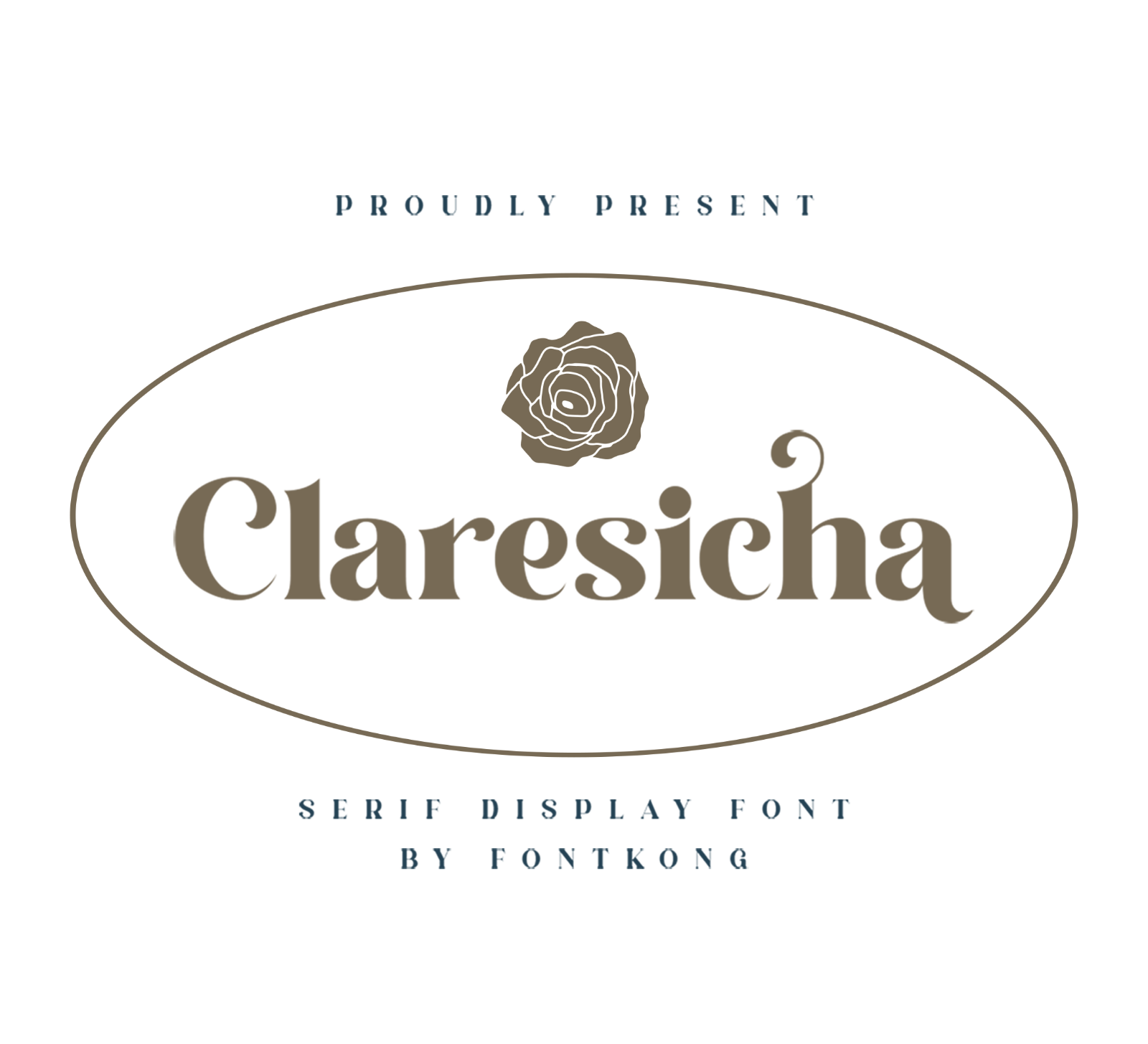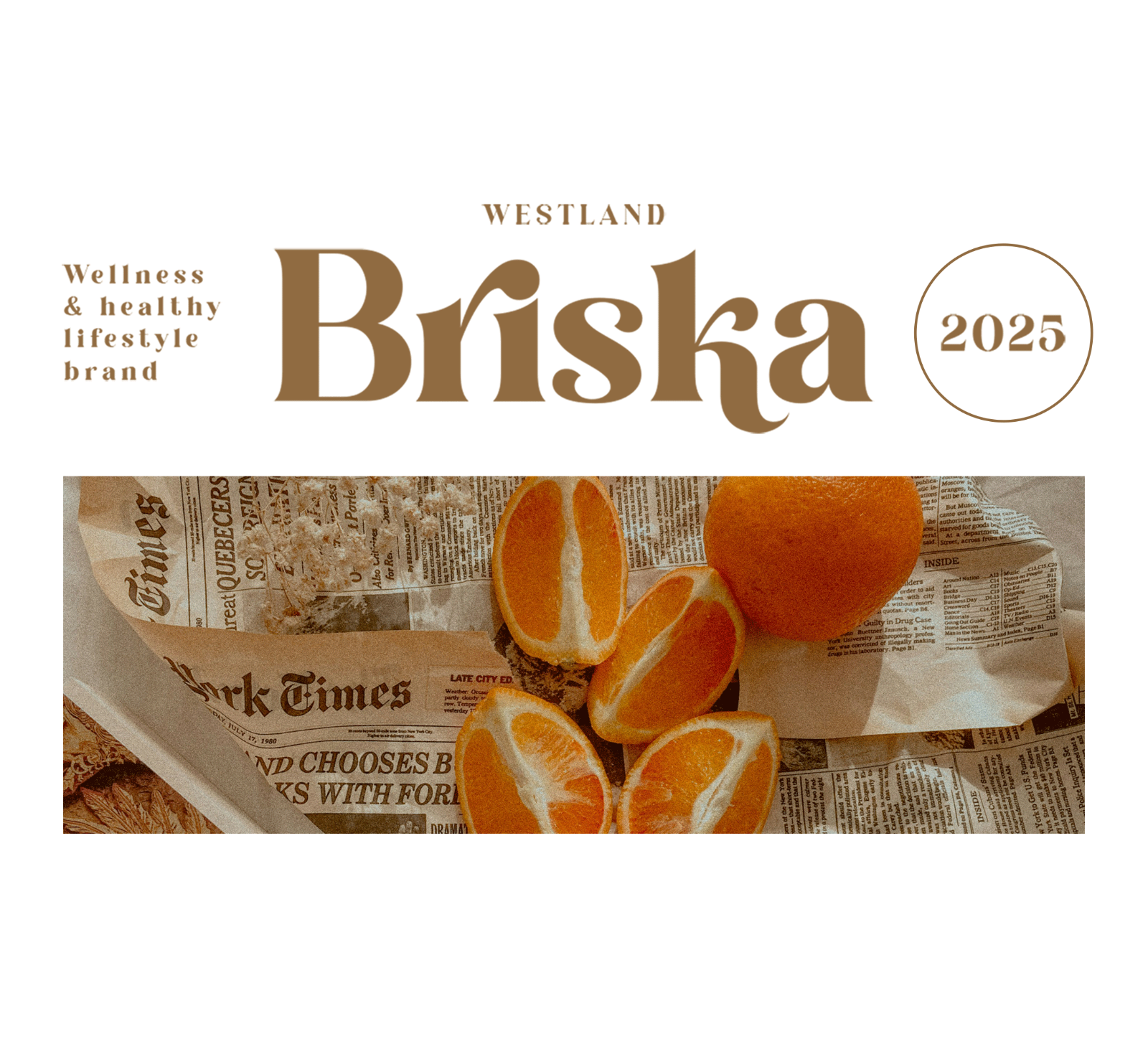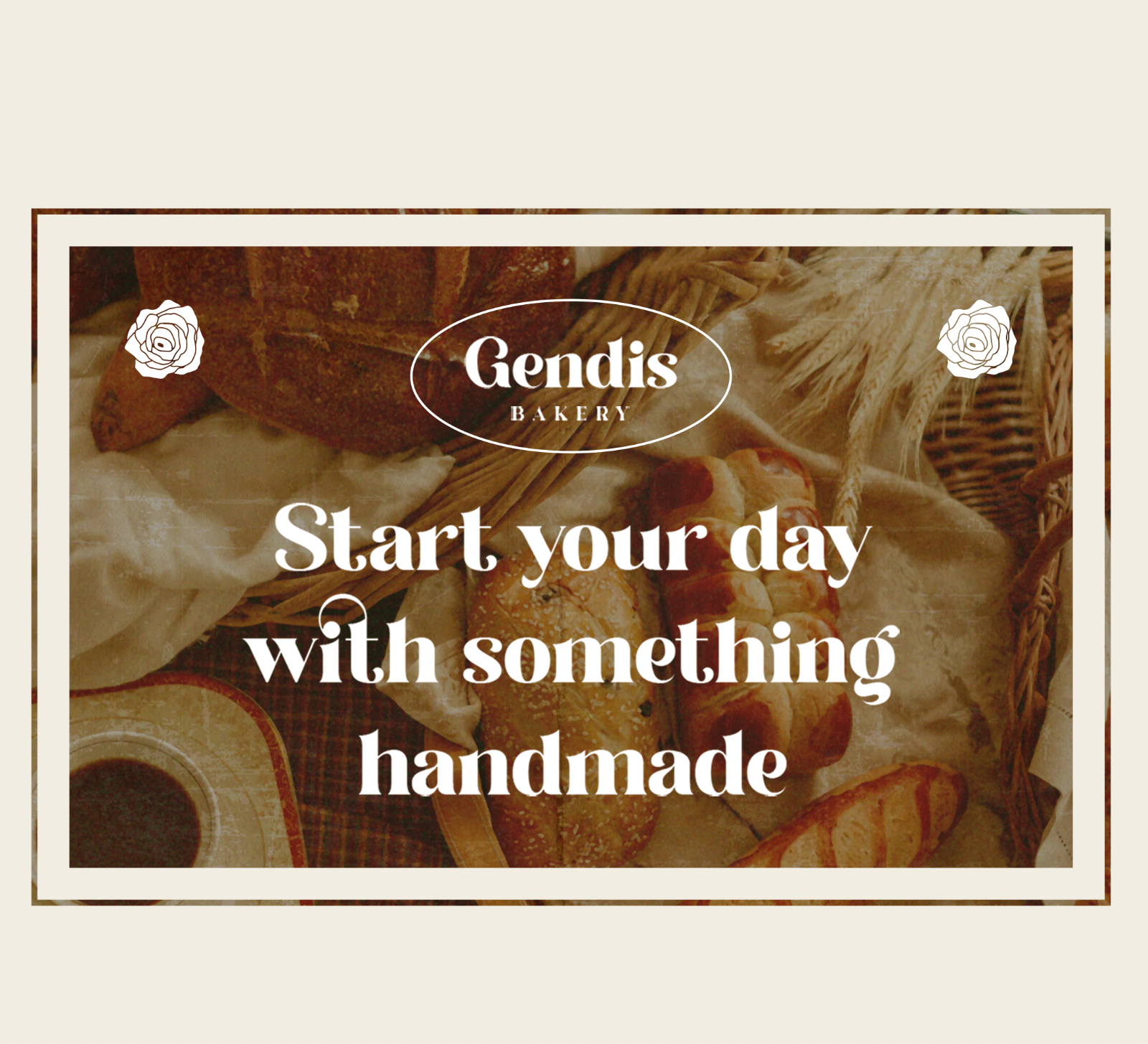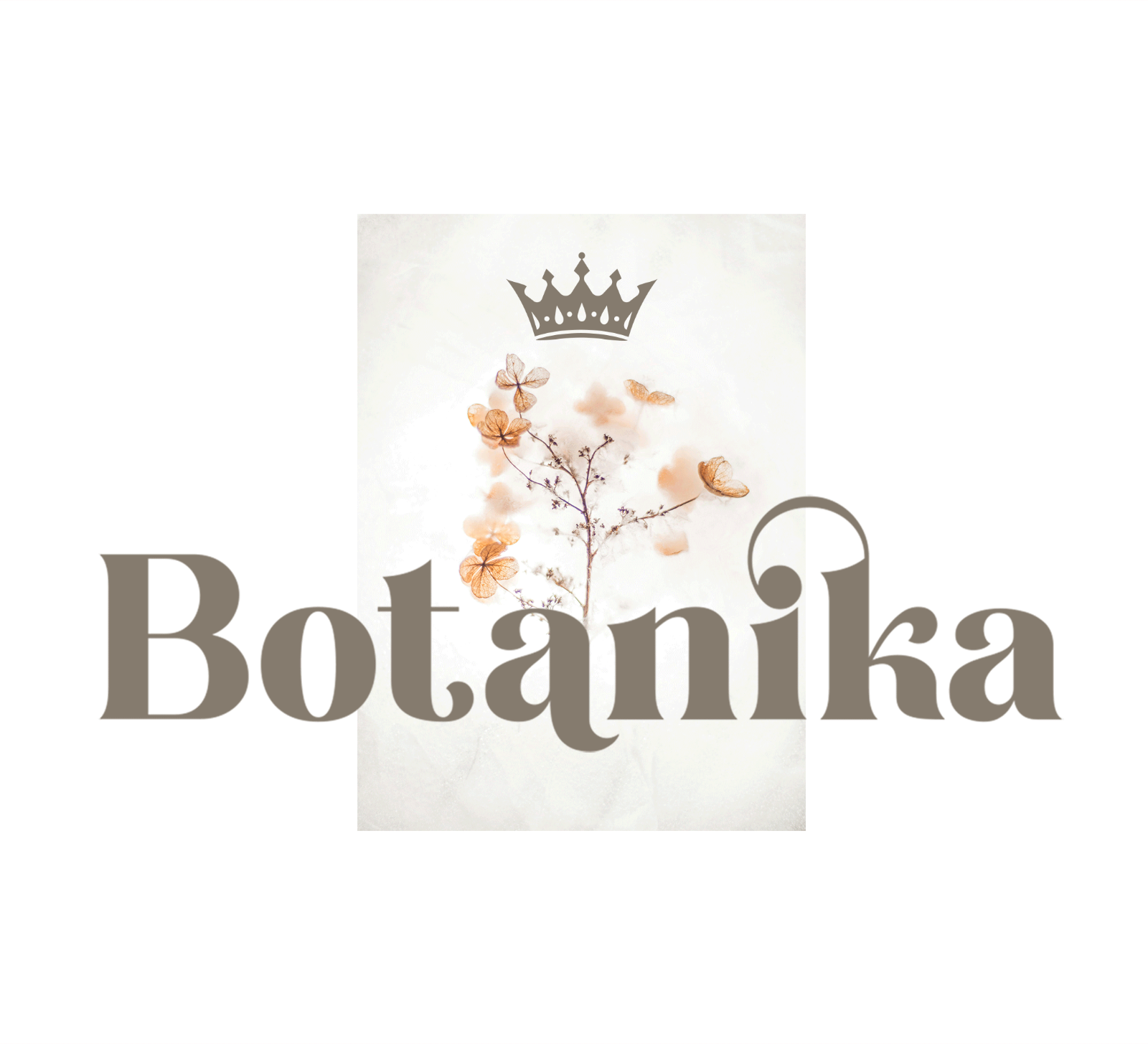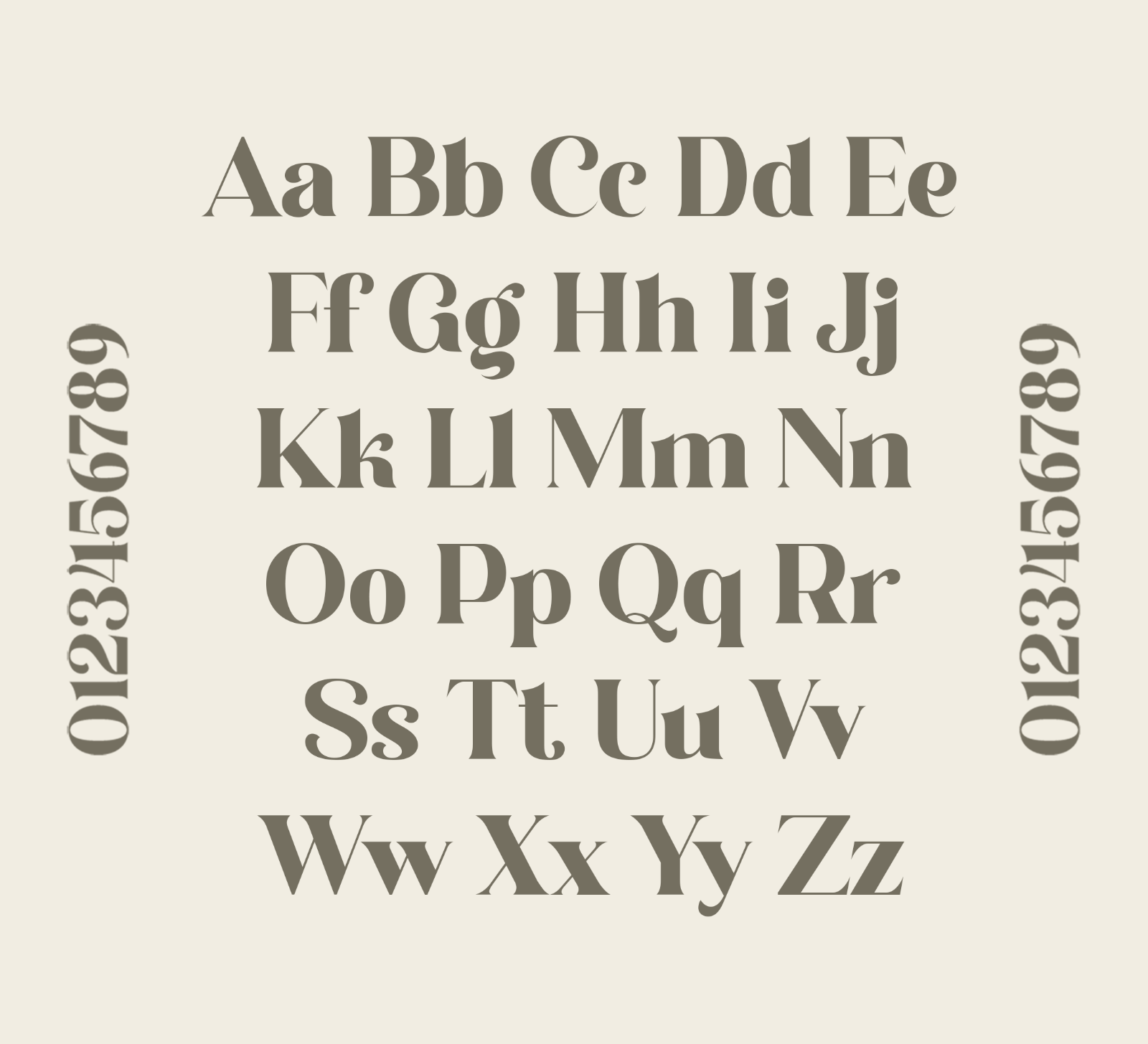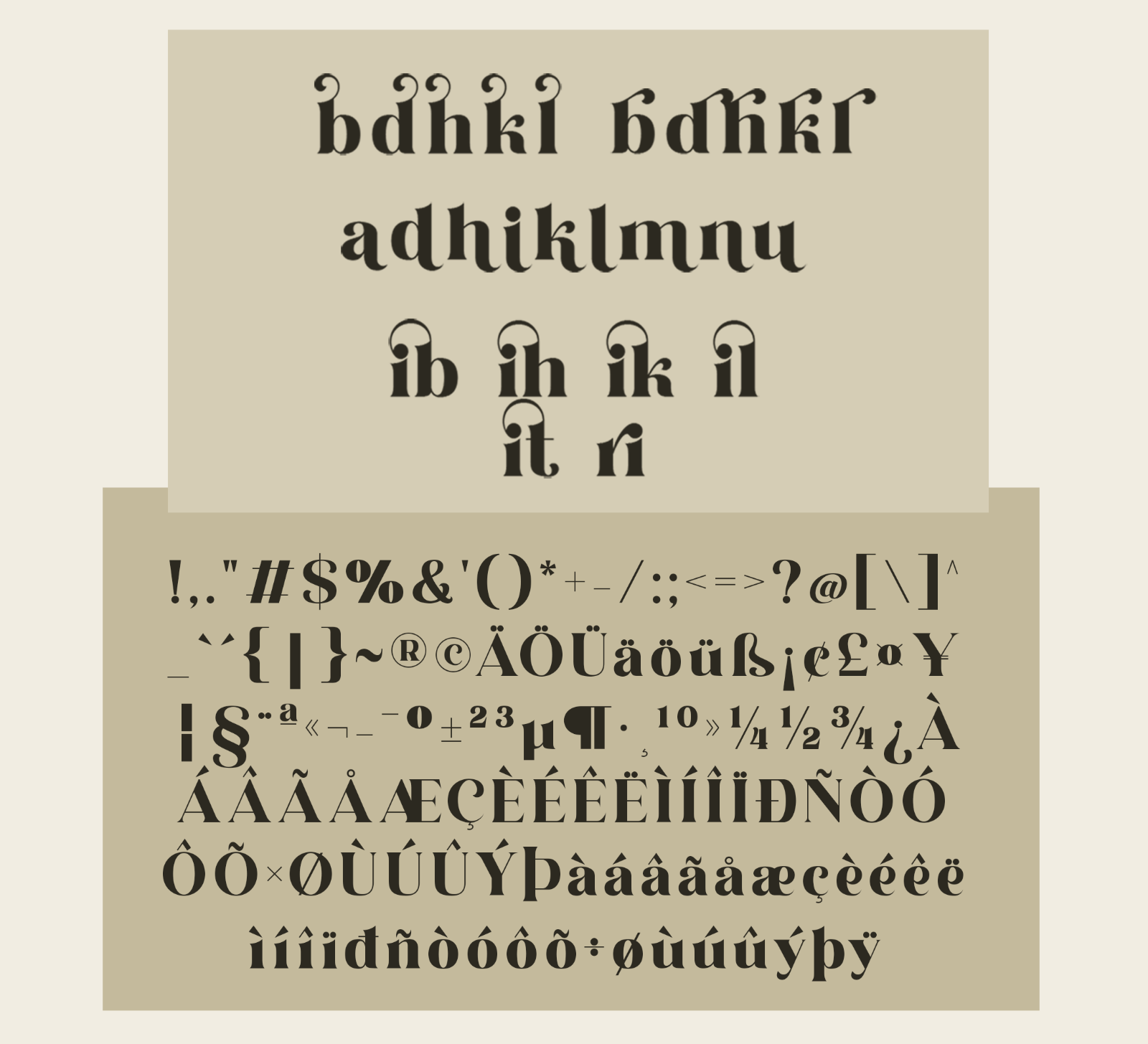
Claresicha is a modern serif font with bold letterforms, smooth curves, and a clean contemporary style. Its refined and stylish appearance makes it perfect for branding, headlines, and creative display projects.
• Branding
• Logos
• Business cards
• Blog headers
• Quotes
• Editorial titles
• Packaging
• Creative typography